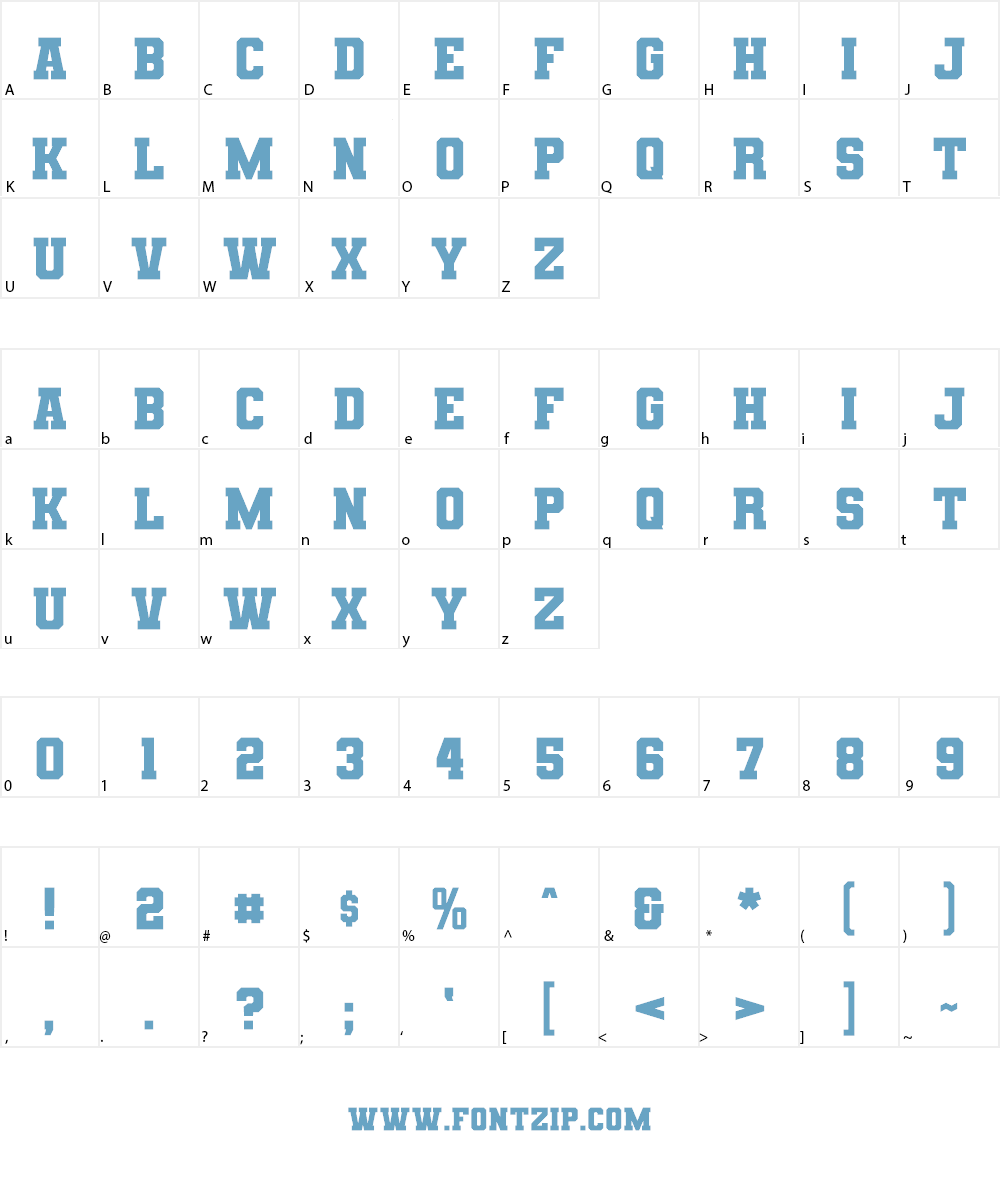
Varsity Team is an all caps font with 284 glyph count, inspired by that school pride spirit feeling, designed for my class reunion, it includes numbers & punctuation, the format file is .OTF with a clean design the typeface has wide range of education theme applications. If you find the font helpful I’ll appreciate your support if possible, Thanks!